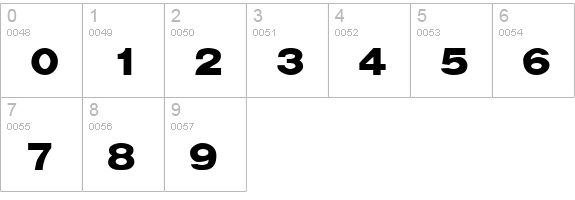
Arena Black Extended is a maximum-weight, dramatic, extended-width variant in the Arena typeface family \xE2\x80\x94 well suited to maximum-impact headlines, posters, and packaging.
Arena Black Extended is a striking and bold display font that commands attention with its sleek and modern design. With its sharp lines and geometric shapes, this font exudes confidence and strength, making it perfect for headlines, logos, and other prominent design elements. The extended version adds an extra level of impact, making a bold statement in any project. Best of all, Arena Black Extended is available for free download at FontsMarket.com. This means you can easily access this powerful font without any cost, allowing you to elevate your designs without breaking the bank. Don't miss out on the opportunity to add this dynamic font to your collection and take your projects to the next level.